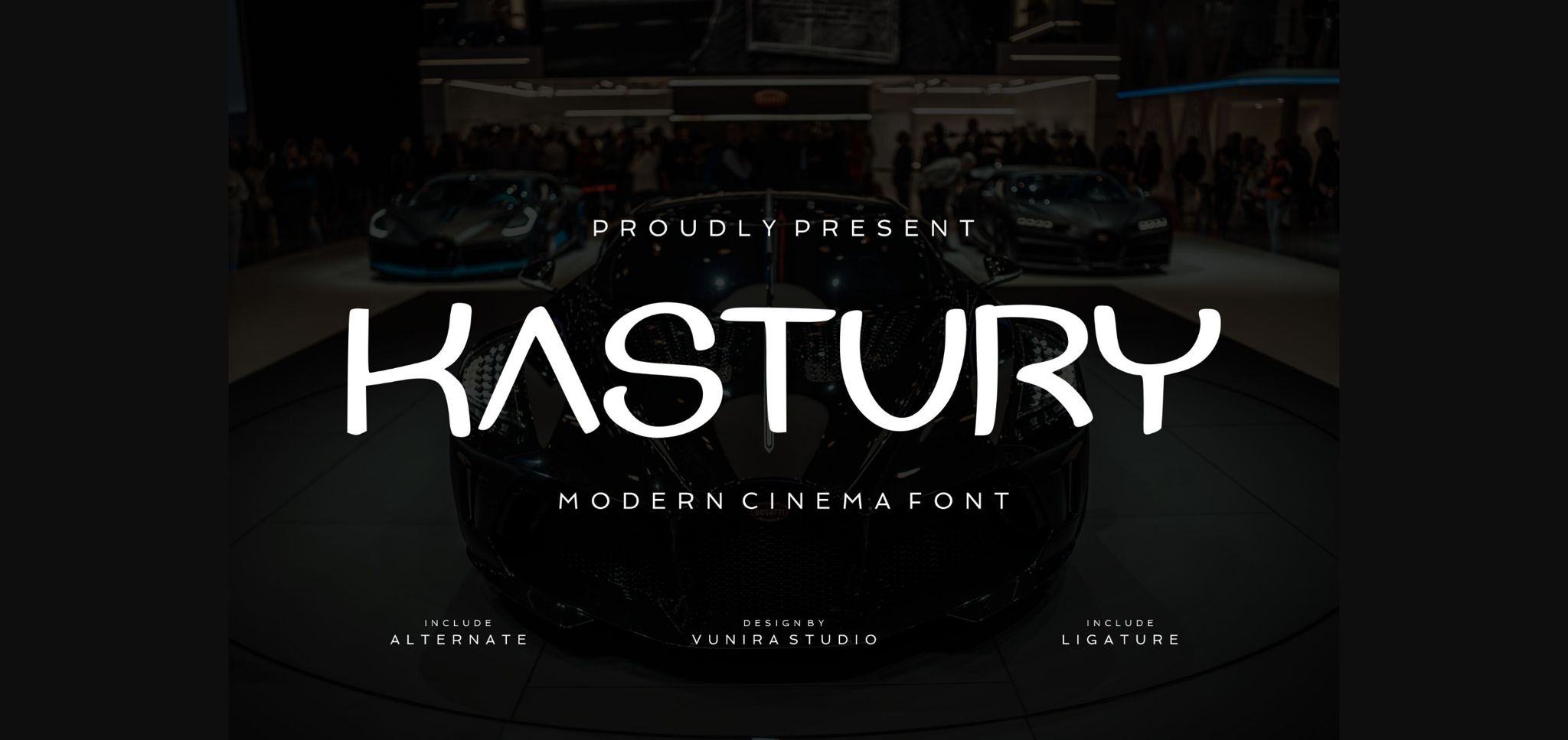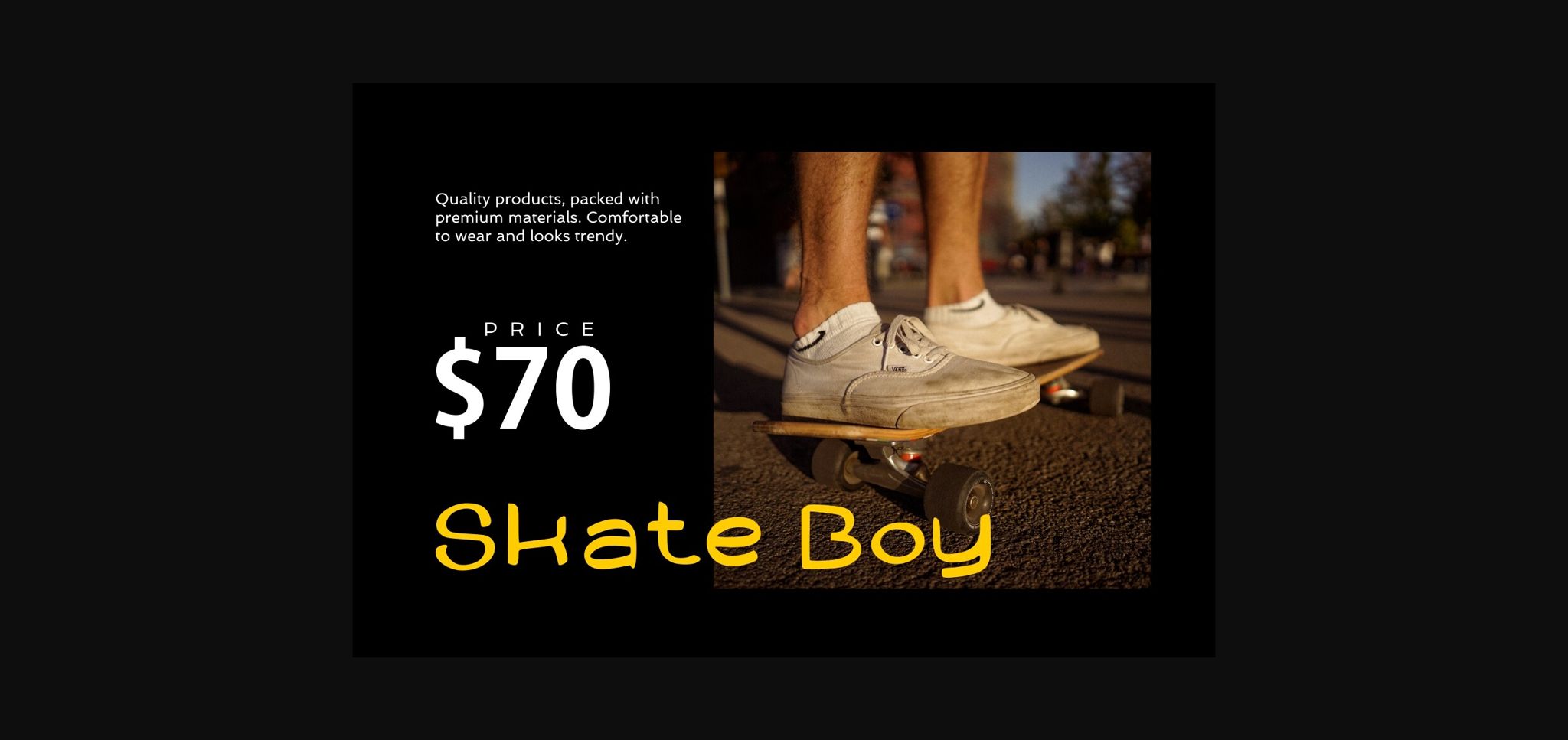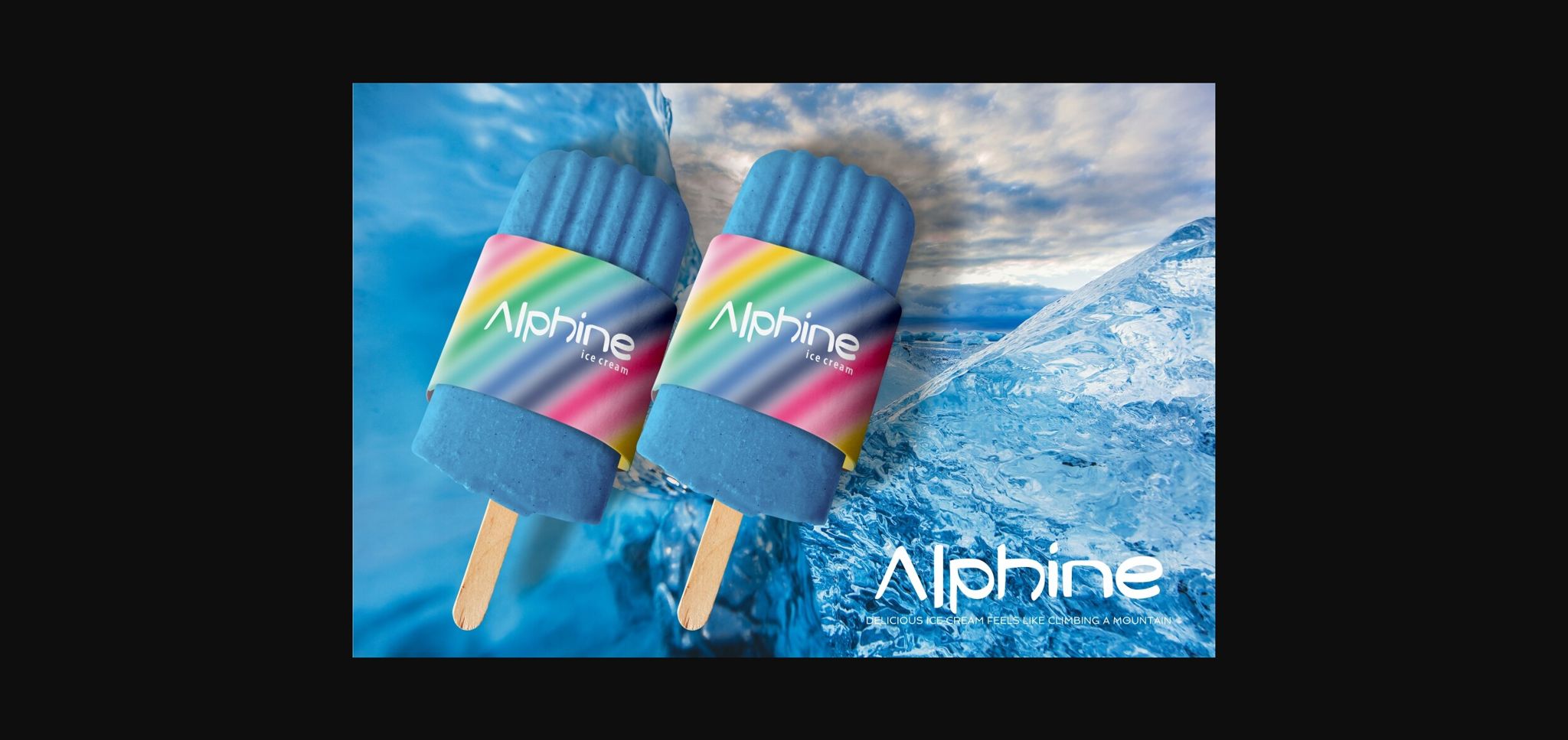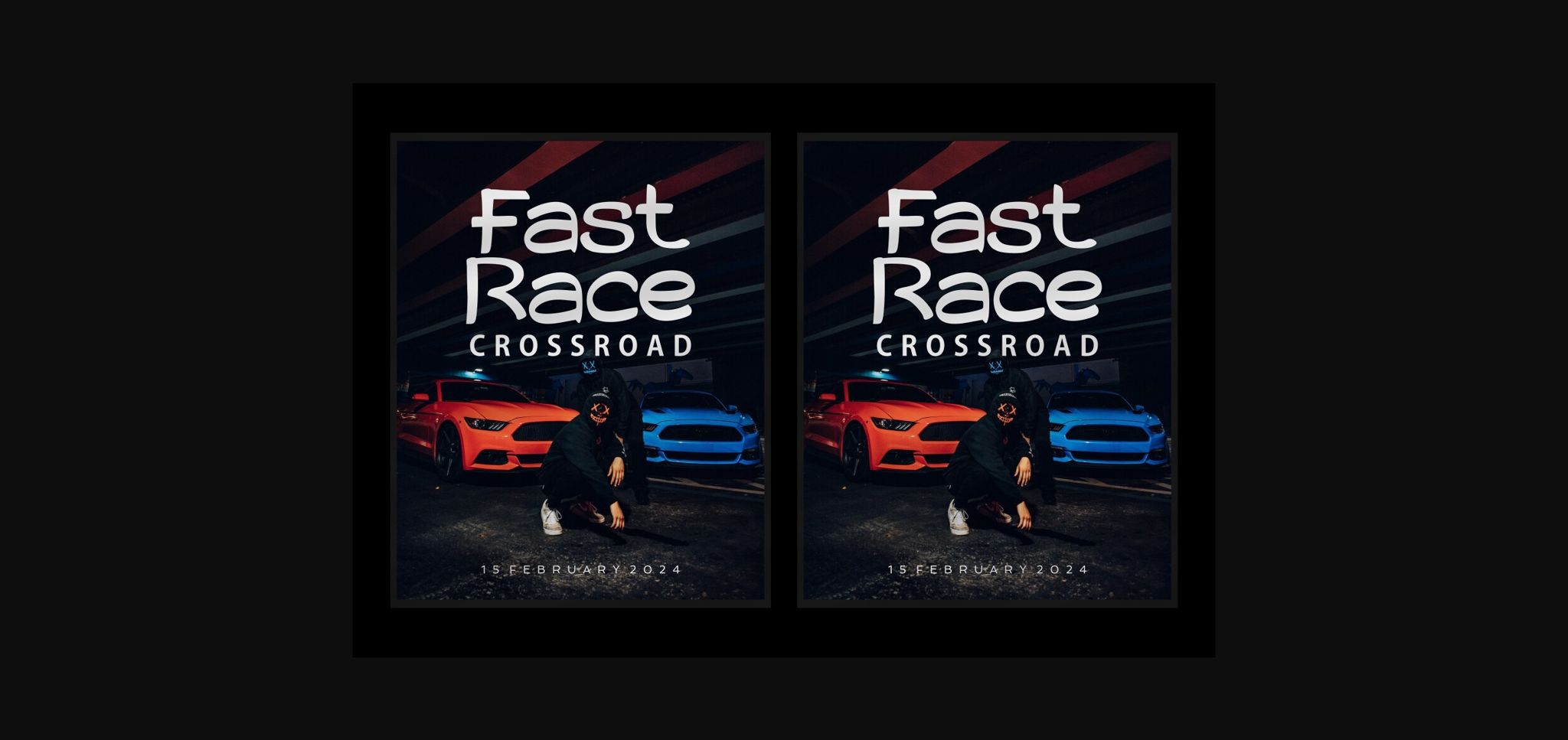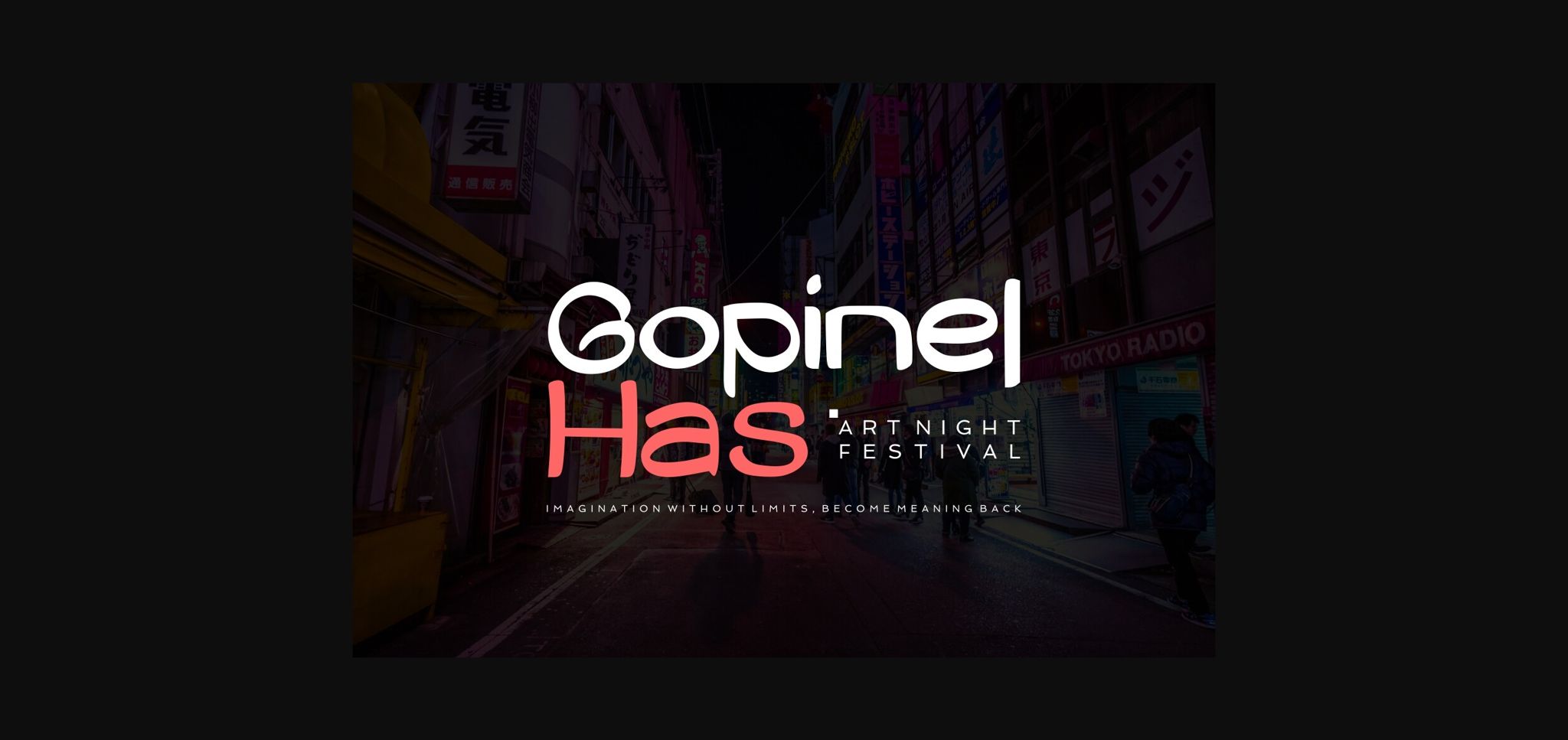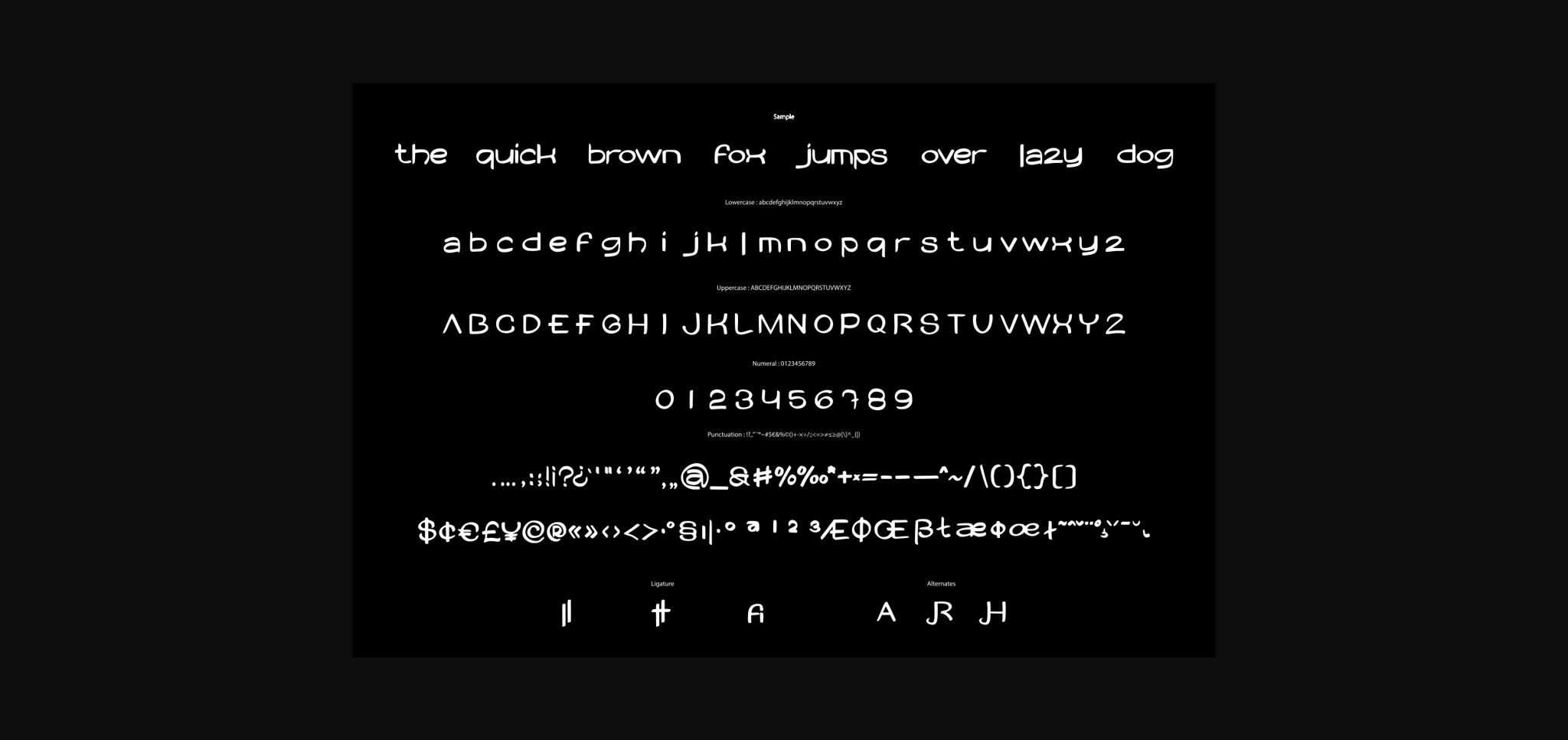
Kastury Font
About Kastury Font
Kastury is a chic sans-serif font blending style and informality seamlessly. Its clean lines and subtle curves offer a modern yet approachable vibe, making it perfect for a wide range of applications from branding to editorial design. With its versatility, Kastury adds a touch of contemporary flair to any project.